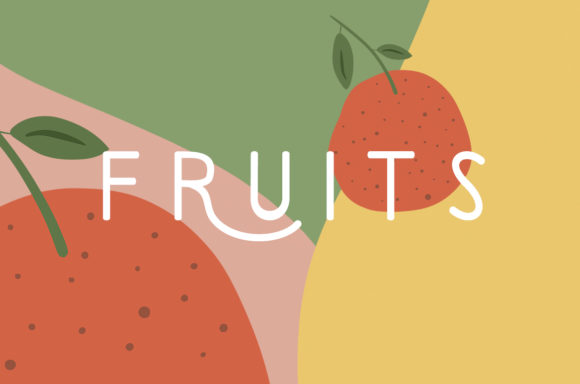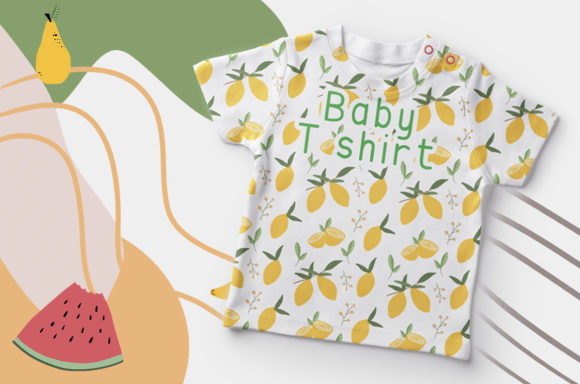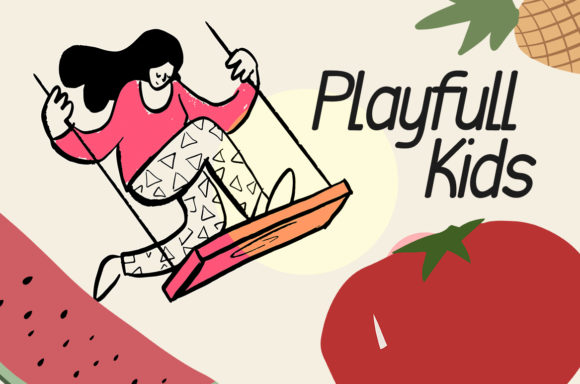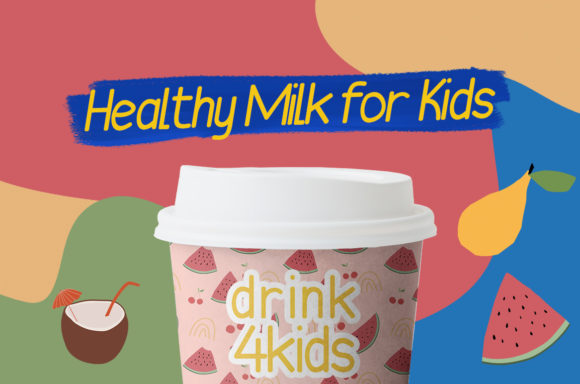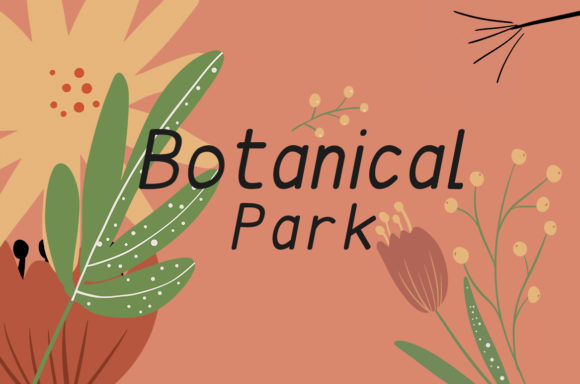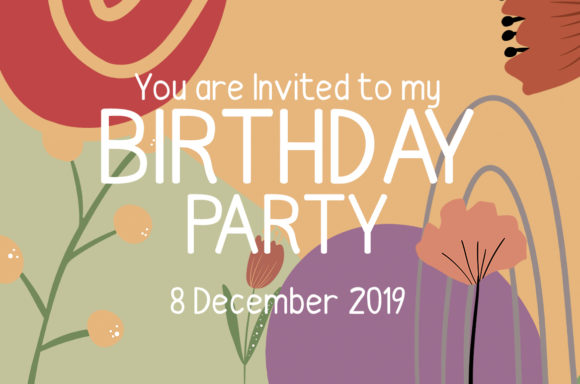
Introduction to Millatyna Font
Have you ever stared at a blank canvas, eager to bring a design project to life, but struggling to find the perfect font to set the tone? That’s where the magic of Millatyna Font comes in – a unique and playful display font that feels instantly familiar, yet refreshingly new. Whether you’re working on a free download or a high-end design project, Millatyna Font is the perfect addition to take your creative vision to the next level.
As a valuable resource for designers, Millatyna Font offers a level of versatility that’s hard to find in other fonts. With its transparent background, you can easily overlay it on top of any design element, adding a touch of whimsy and personality to your work. Plus, its high-quality design makes it perfect for a wide range of creative projects, from branding and marketing materials to social media graphics and more.
Key Features of Millatyna Font
- Includes a transparent background, making it versatile for various design applications.
- Features a unique, elegant design that sets it apart from other fonts in its category.
- Supports a wide range of languages, making it a great choice for multilingual creative projects.
- Designed with high resolution in mind, suitable for both print and digital applications.
Honest Review: Millatyna Font
As a designer, I’m always on the lookout for high-quality fonts that can elevate my creative projects. I recently came across the Millatyna Font, and I’m excited to share my honest review.
- Unique and elegant design: The Millatyna Font has a distinctive, modern look that sets it apart from more common fonts.
- High-quality vector graphics: The font files are well-constructed and easy to work with, making it a great resource for designers.
- Transparent background: This feature allows for easy customization and flexibility in design projects.
- Limited character set: The Millatyna Font may not have the full range of characters and languages that some designers require.
- No bold or italic variations: While the font looks great in regular weight, I wish there were more style options available.
Overall, I’m impressed with the Millatyna Font’s unique design and high-quality construction. While it may have some limitations, it’s a great addition to any designer’s toolkit. If you’re looking for a distinctive, modern font for your creative project, the Millatyna Font is definitely worth considering.
Millatyna Font
Tips for Getting the Most Out of Millatyna Font
To get the most out of Millatyna Font, experiment with different font sizes, colors, and combinations. Use the font’s transparent background to create visually appealing graphics and designs.
Millatyna Font is perfect for a variety of creative projects, including:
Montserrat Font is a popular sans-serif font perfect for creative projects needing a strong and urban feel. It’s available for free download and features a transparent background, making it ideal for design resources like typography and graphics. Montserrat Font is a great alternative to Millatyna Font, offering a more modern and edgy look.